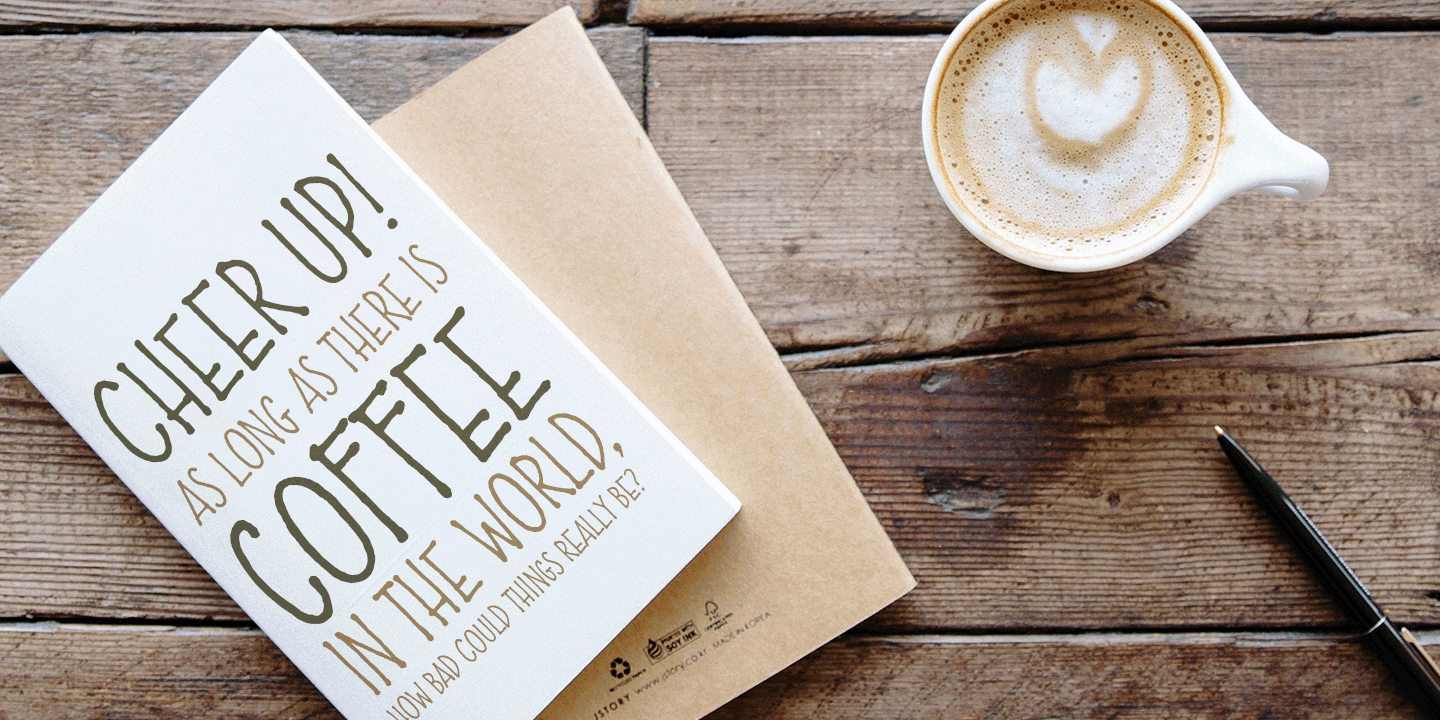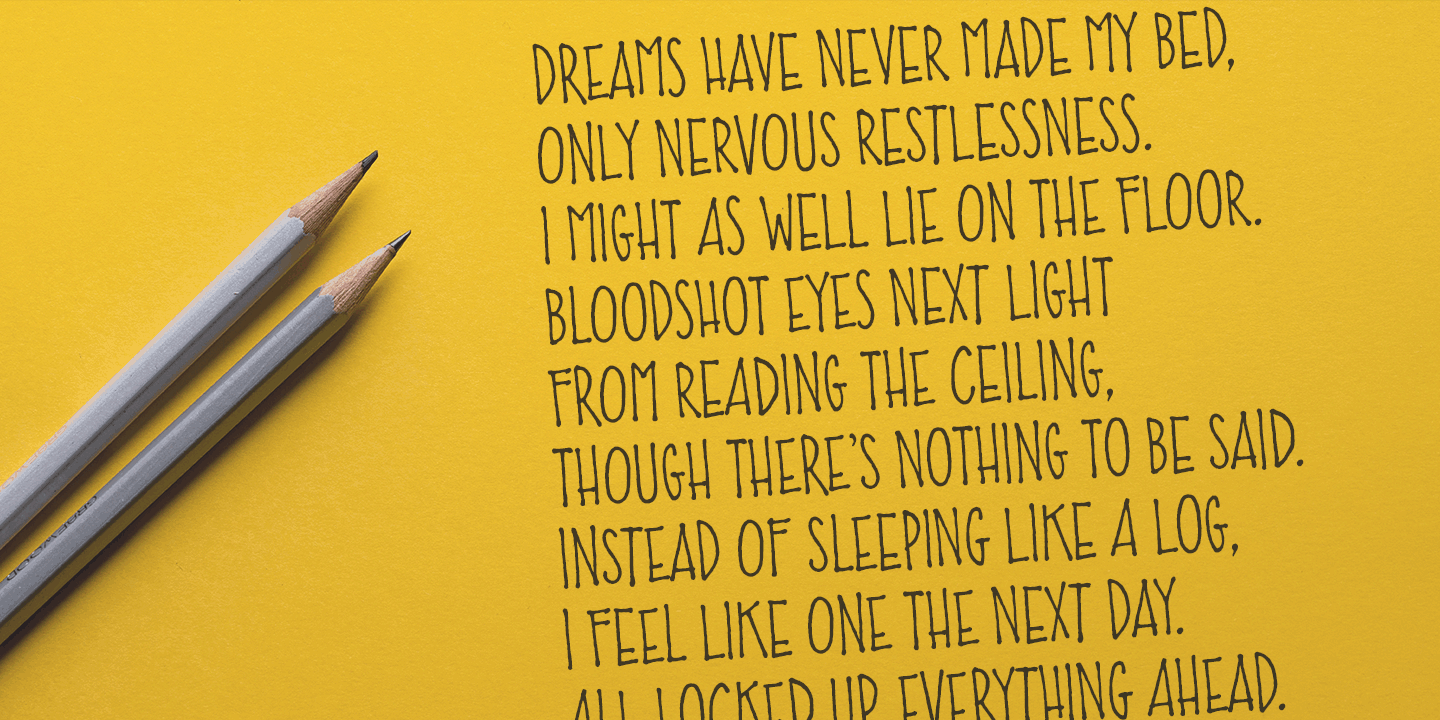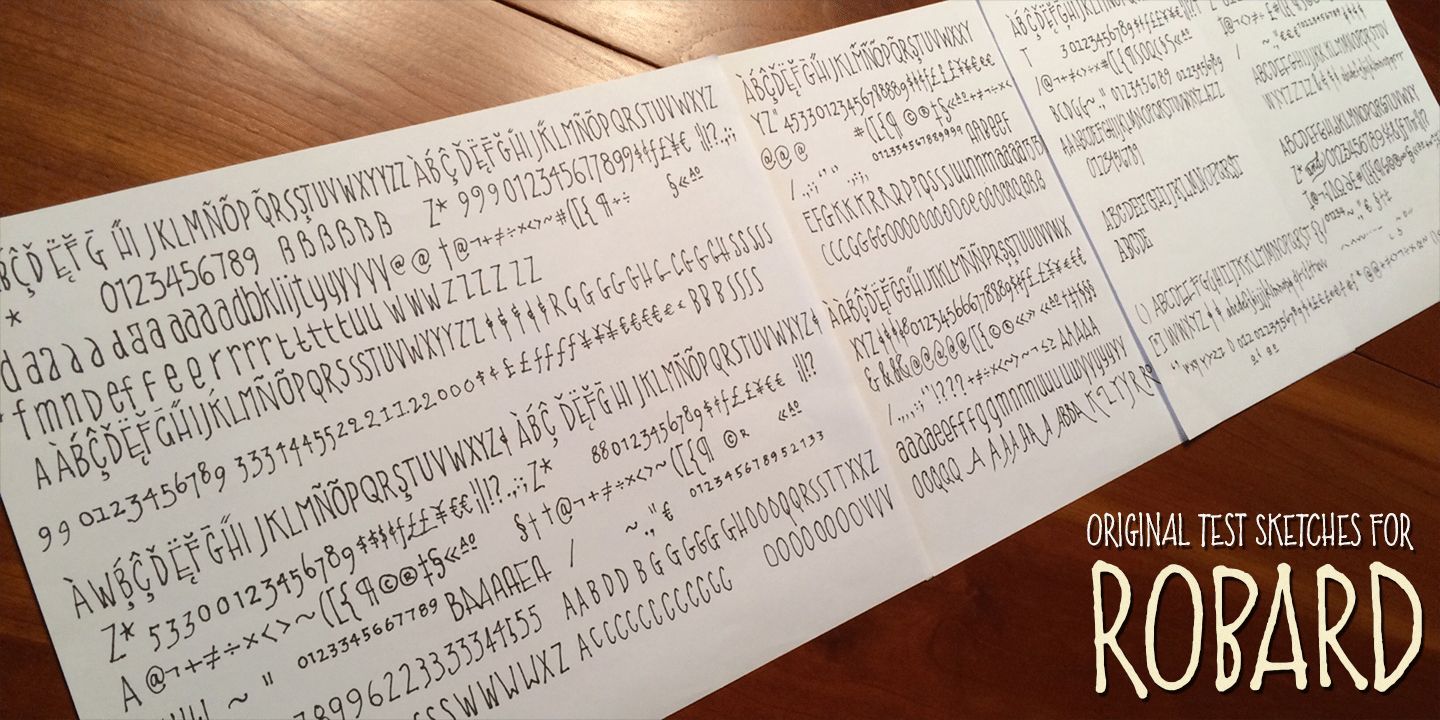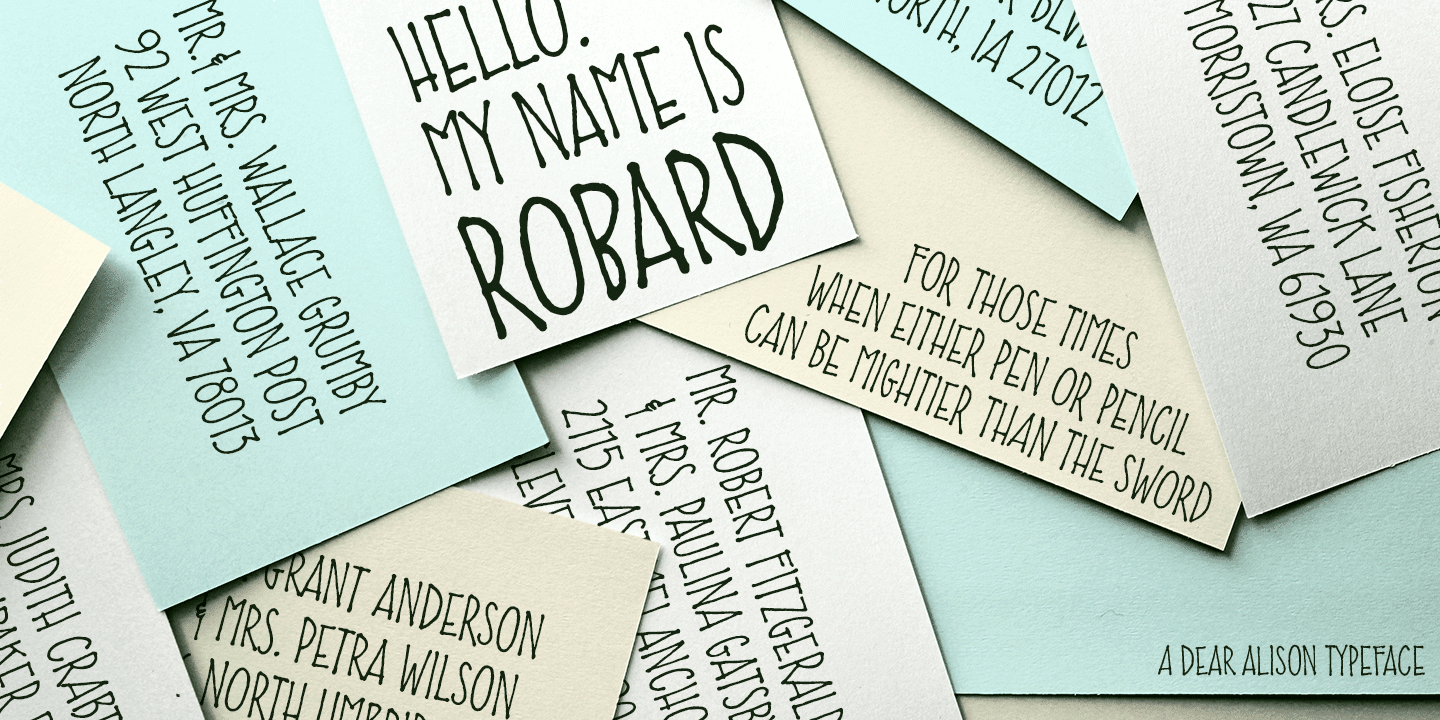
About Robard
My brother is an architect, and I have always loved his lettering, you know, the style of writing that can be found on architectural drawings. There is a common thread to it, yet each architect or engineer brings their own personality to it. I have seen…